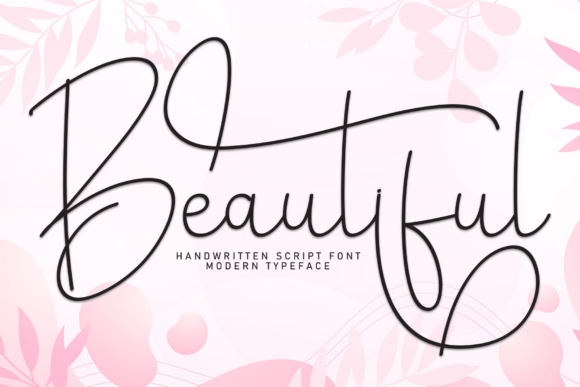
Discover the Joy of Beautiful Handwriting
Have you ever sat down with a blank sheet of paper and a pen, feeling the urge to create something truly special? Maybe it’s a wedding invitation, a birthday card, or a heartfelt letter to a loved one. Whatever the occasion, there’s something magical about putting pen to paper and bringing your thoughts and emotions to life. But what if you could take that personal touch to the next level, infusing your designs with a dash of whimsy and charm?
That’s where Beautiful Font comes in – a delightful, handwritten display font that’s perfect for adding a playful twist to your creative work. With its lively demeanor and adorable charm, Beautiful Font is sure to bring a smile to the faces of your loved ones, and make your designs truly unforgettable.
Whether you’re a seasoned designer or just starting out, Beautiful Font is a valuable addition to your toolkit. Its unique personality and versatility make it a must-have for anyone looking to add a little extra magic to their work.
- Font Family: Beautiful Font offers a range of stylish and elegant font families, each with its unique characteristics and nuances.
- Unique Characteristics: Each font family features unique design elements, such as hand-drawn illustrations, intricate details, and ornate flourishes, setting it apart from other fonts.
Beautiful Font Review
Overall, I’m really impressed with the “Beautiful Font”! ✨ The first thing that caught my attention was its unique and elegant design. The font is highly customizable, allowing users to adjust its size, color, and spacing to suit their needs. This flexibility makes it a great choice for a wide range of applications, from web design to print materials.
Some of the standout features of “Beautiful Font” include:
- Beautiful typography, with clean lines and a classic feel
- Highly customizable, with options for size, color, and spacing
- Supports a wide range of languages, making it a great choice for global applications
- Looks great on both desktop and mobile devices
However, there are a few limitations to be aware of:
- May not be as suitable for ultra-technical or scientific content, due to its more decorative style
Overall, I’m really pleased with “Beautiful Font” and would definitely recommend it to anyone looking for a high-quality, customizable font. With its elegant design and flexibility, it’s a great choice for a wide range of applications.
Beautiful Font is ideal for:
- Creating eye-catching headlines and titles.
- Designing professional-looking business cards and resumes.
- Adding a touch of elegance to wedding invitations and other special occasion materials.